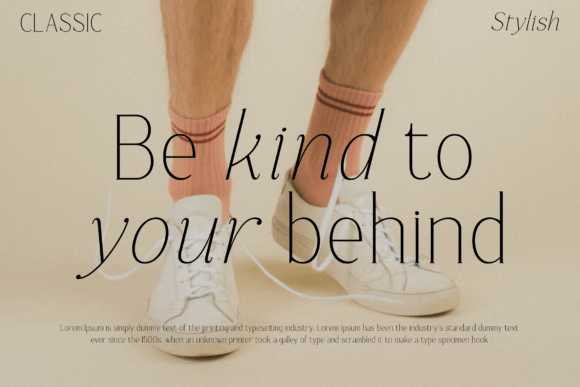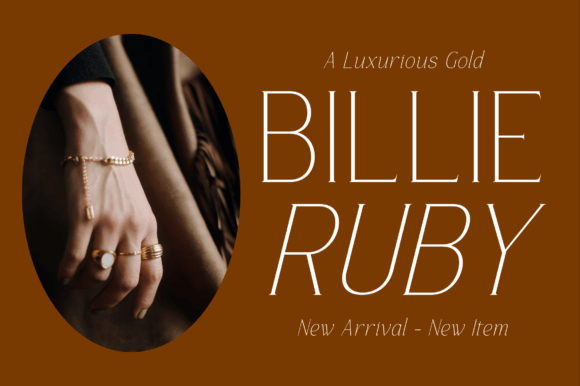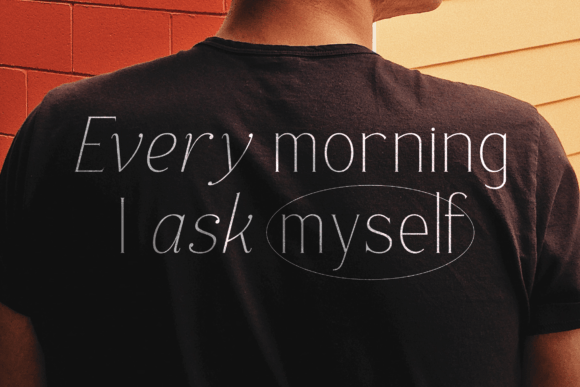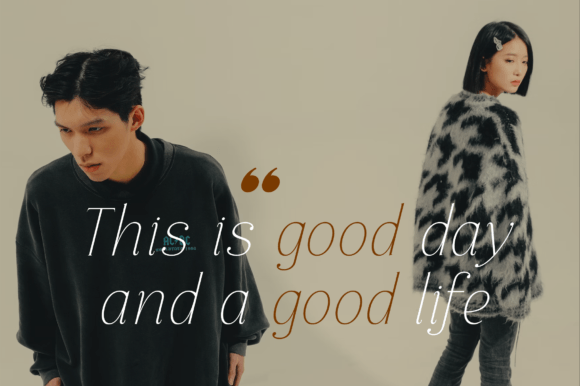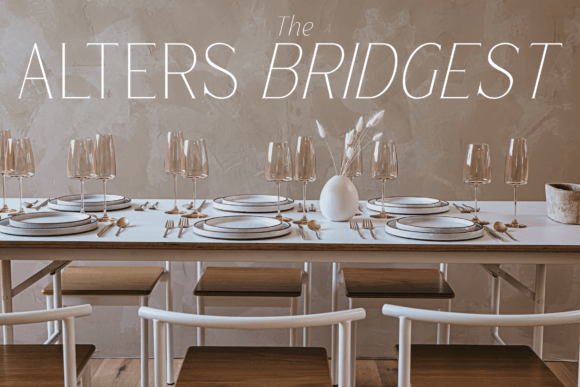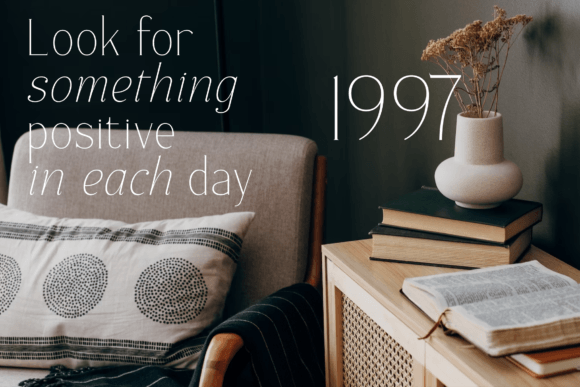
Introducing Challiolethe Font: A Timeless Serif Typeface for Elegant Designs
In the world of typography, a well-crafted font can elevate a design from ordinary to extraordinary. For designers and crafters seeking a serif typeface that exudes modernity and classic sophistication, Challiolethe Font is an exceptional choice. This elegant font boasts a unique style and contemporary look, making it perfect for a wide range of applications, from luxury logos and book titles to fashion branding and magazine layouts.
The Essence of Challiolethe Font
Challiolethe Font is a thoughtfully designed serif typeface that strikes a balance between modernity and classic charm. Its distinctive style is characterized by clean lines, subtle flair, and a sophisticated elegance that lends itself to high-end designs. Whether you’re working on a logo, title design, or any project that demands a touch of luxury, Challiolethe Font is sure to impress.
One of the standout features of Challiolethe Font is its versatility. This typeface is not limited to a specific design genre; rather, it can be seamlessly integrated into various projects, including:
- Elegant Logos: Create a lasting impression with a luxury logo that embodies sophistication and refinement.
- Book or Movie Titles: Add a touch of glamour to your book or movie titles with a font that commands attention and respect.
- Fashion Brands: Elevate your fashion brand with a typeface that exudes style, elegance, and high-end quality.
- Magazines: Use Challiolethe Font to create visually stunning magazine layouts that engage and captivate your audience.
- Clothes and Lettering: Incorporate this beautiful font into your clothing designs or lettering projects for a unique and stylish look.
- Quotes and More: Add a touch of sophistication to your quotes, posters, and other design projects with Challiolethe Font.
Why Choose Challiolethe Font?
With so many typefaces available, why should you choose Challiolethe Font for your next project? Here are a few compelling reasons:
- Unique Style: Challiolethe Font boasts a distinctive style that sets it apart from more traditional serif typefaces.
- Modern Look: Despite its classic roots, this font has a modern look that will make your designs stand out in a crowded marketplace.
- Elegance and Sophistication: Challiolethe Font embodies elegance and sophistication, making it perfect for high-end designs.
- Versatility: As mentioned earlier, this typeface can be used for a wide range of projects, making it a valuable addition to your font library.
Tips for Using Challiolethe Font
To get the most out of Challiolethe Font, here are a few tips to keep in mind:
- Pair it with Other Fonts: Experiment with pairing Challiolethe Font with other fonts to create visually interesting and dynamic designs.
- Play with Sizes: Don’t be afraid to experiment with different font sizes to create hierarchy and emphasis in your designs.
- Pay Attention to Kerning: Make sure to adjust the kerning to ensure that your text is evenly spaced and visually appealing.
In conclusion, Challiolethe Font is a versatile and elegant serif typeface that is perfect for designers and crafters seeking a modern and classic look. With its unique style, sophisticated charm, and wide range of applications, this font is sure to become a staple in your font library. Whether you’re working on a luxury logo, book title, or fashion brand, Challiolethe Font is the perfect choice for creating stunning designs that exude elegance and refinement.